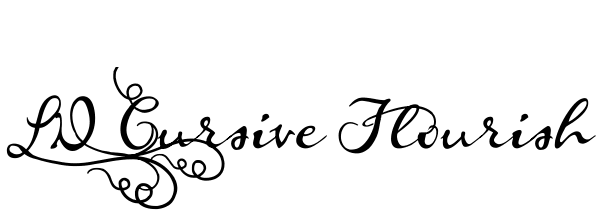
LD Cursive Flourish
LD Cursive Flourish is the ultimate in casual elegance. This handwritten script comes complete with fancy flowing flourishes. Intricate and so unique! See LD Cursive for this font without flourishes.
LD Cursive Flourish Font